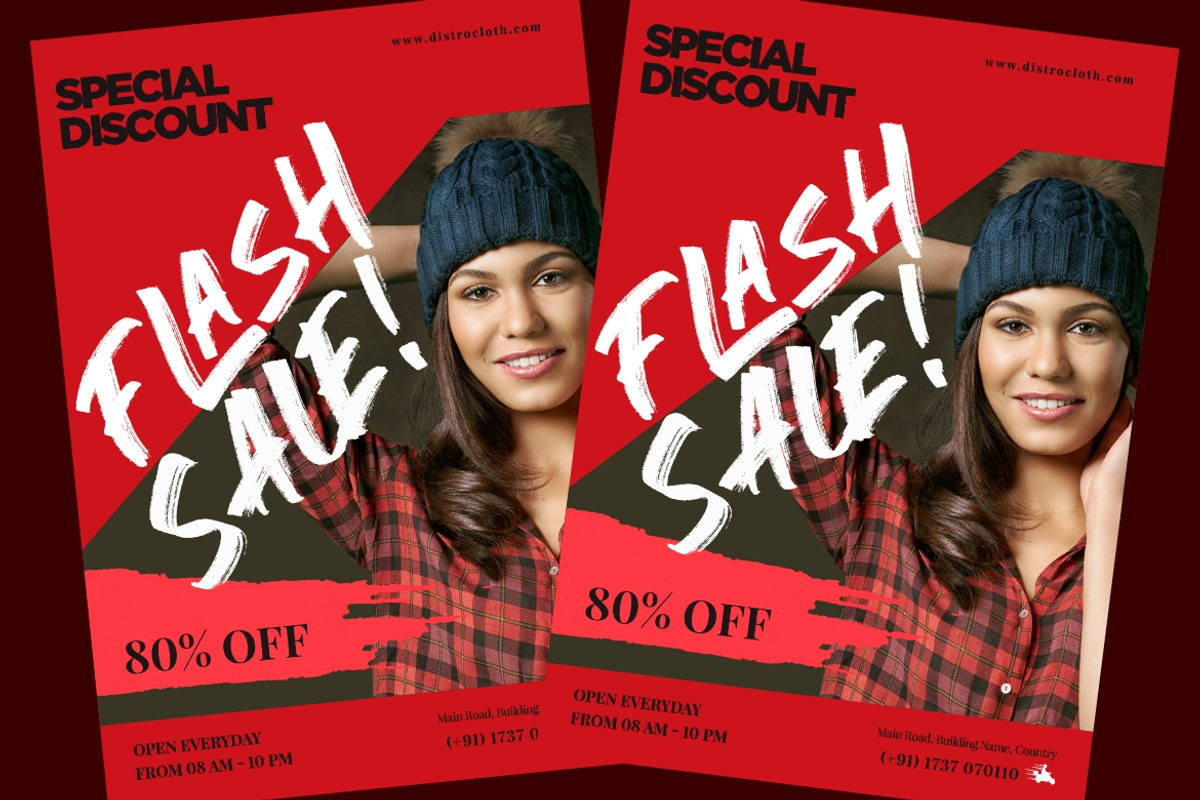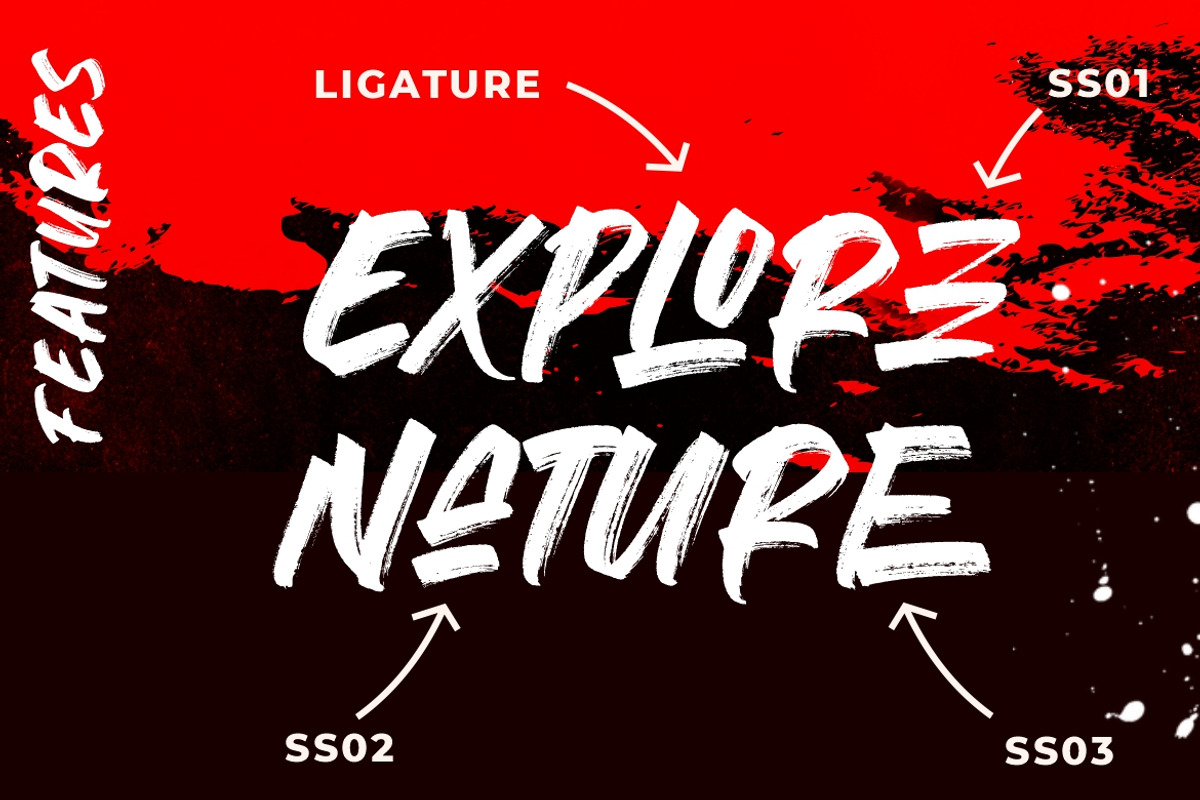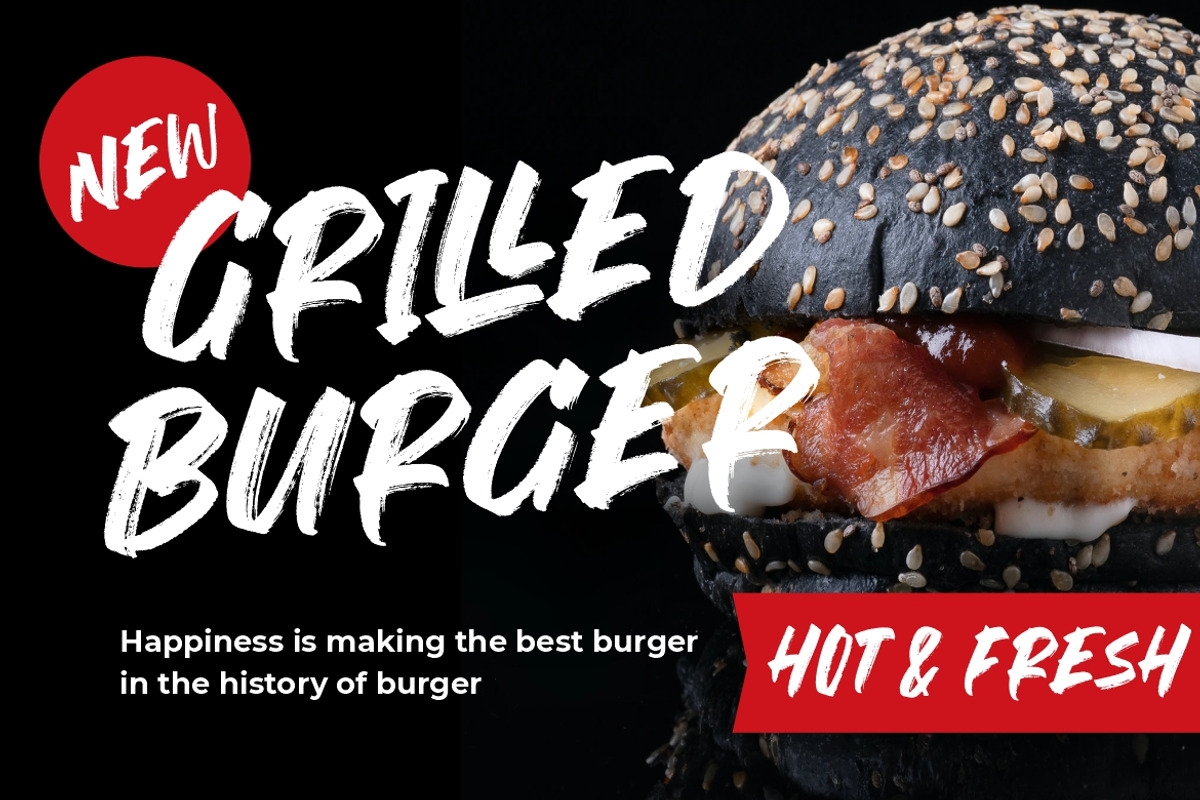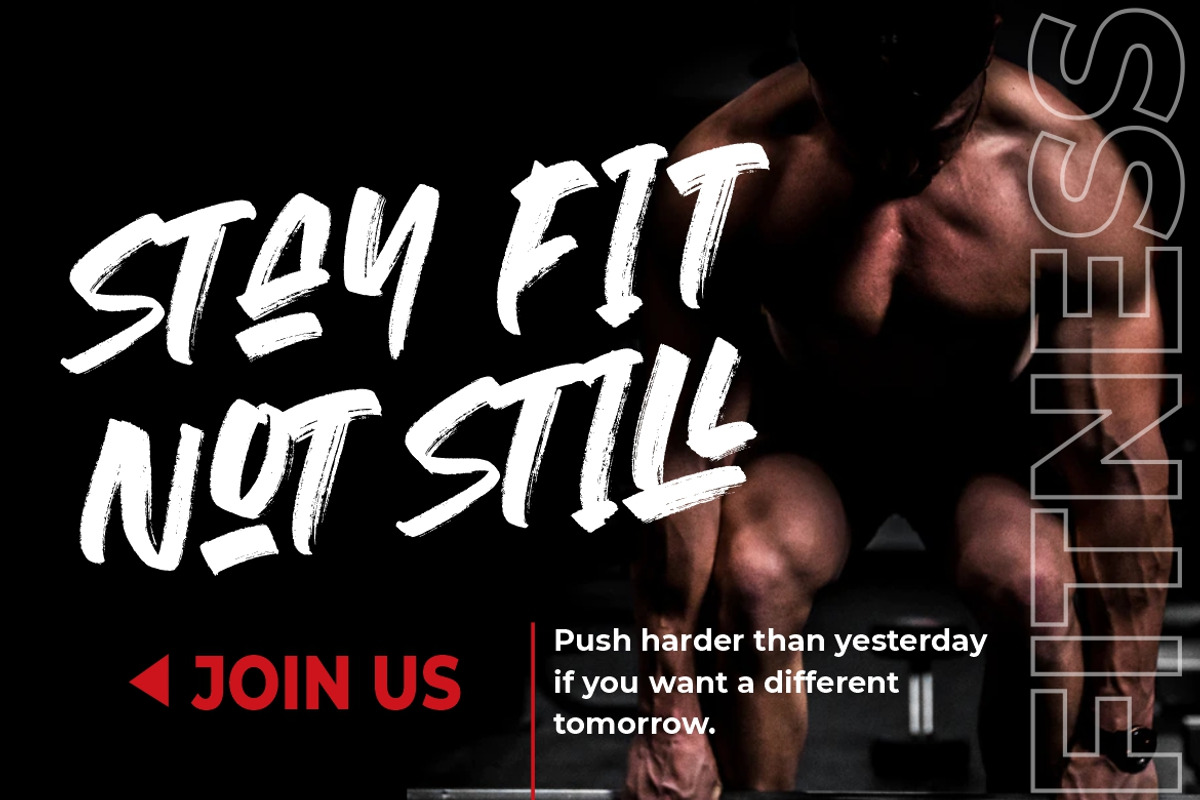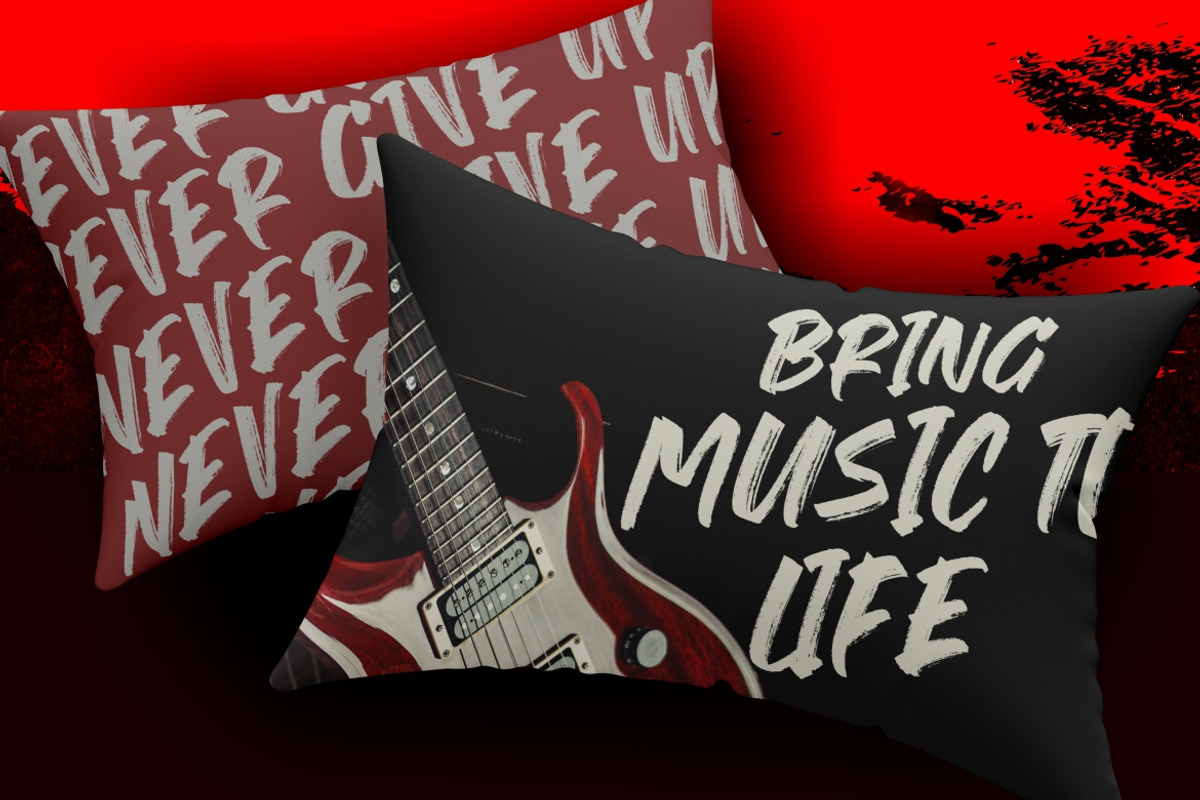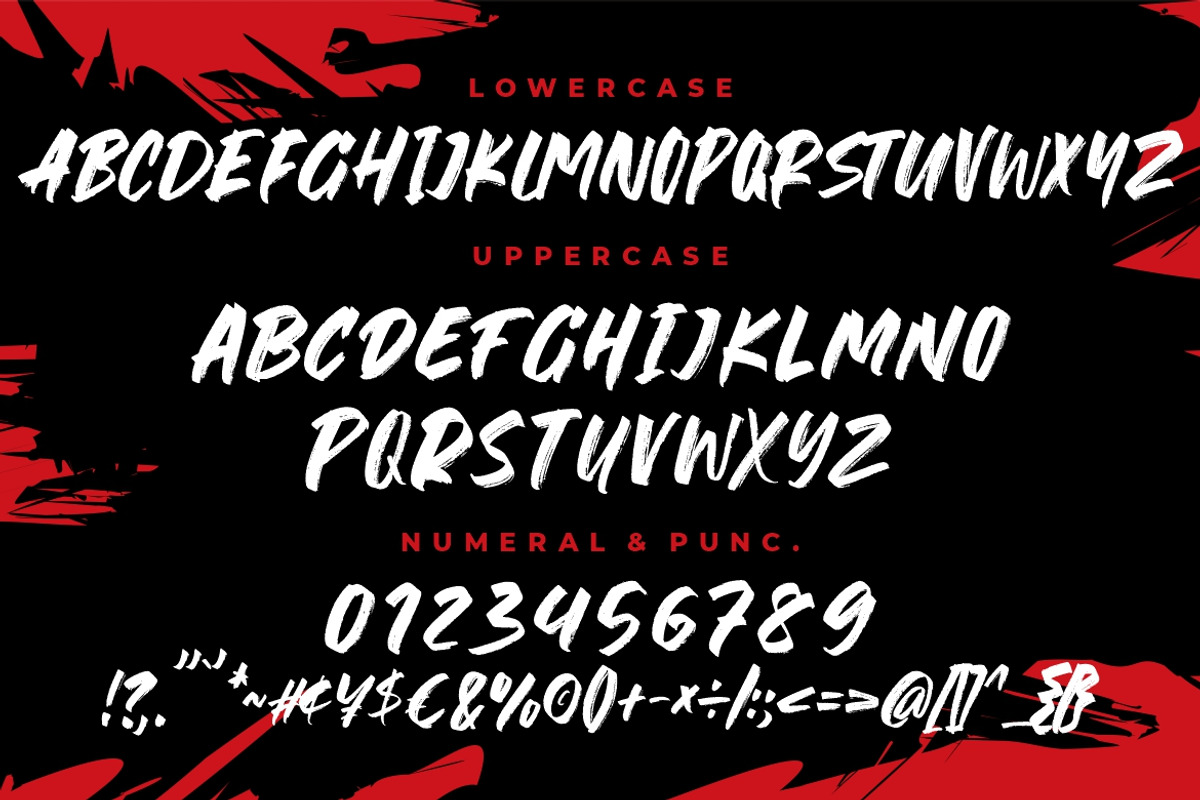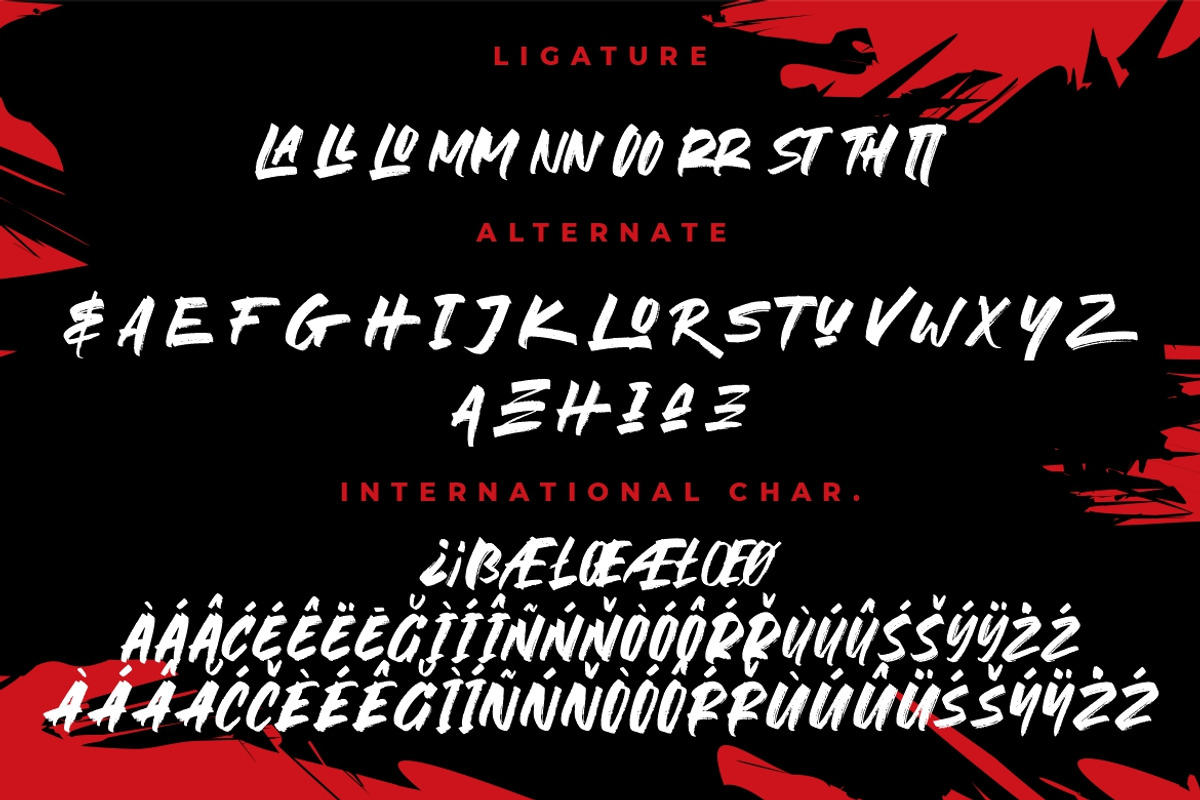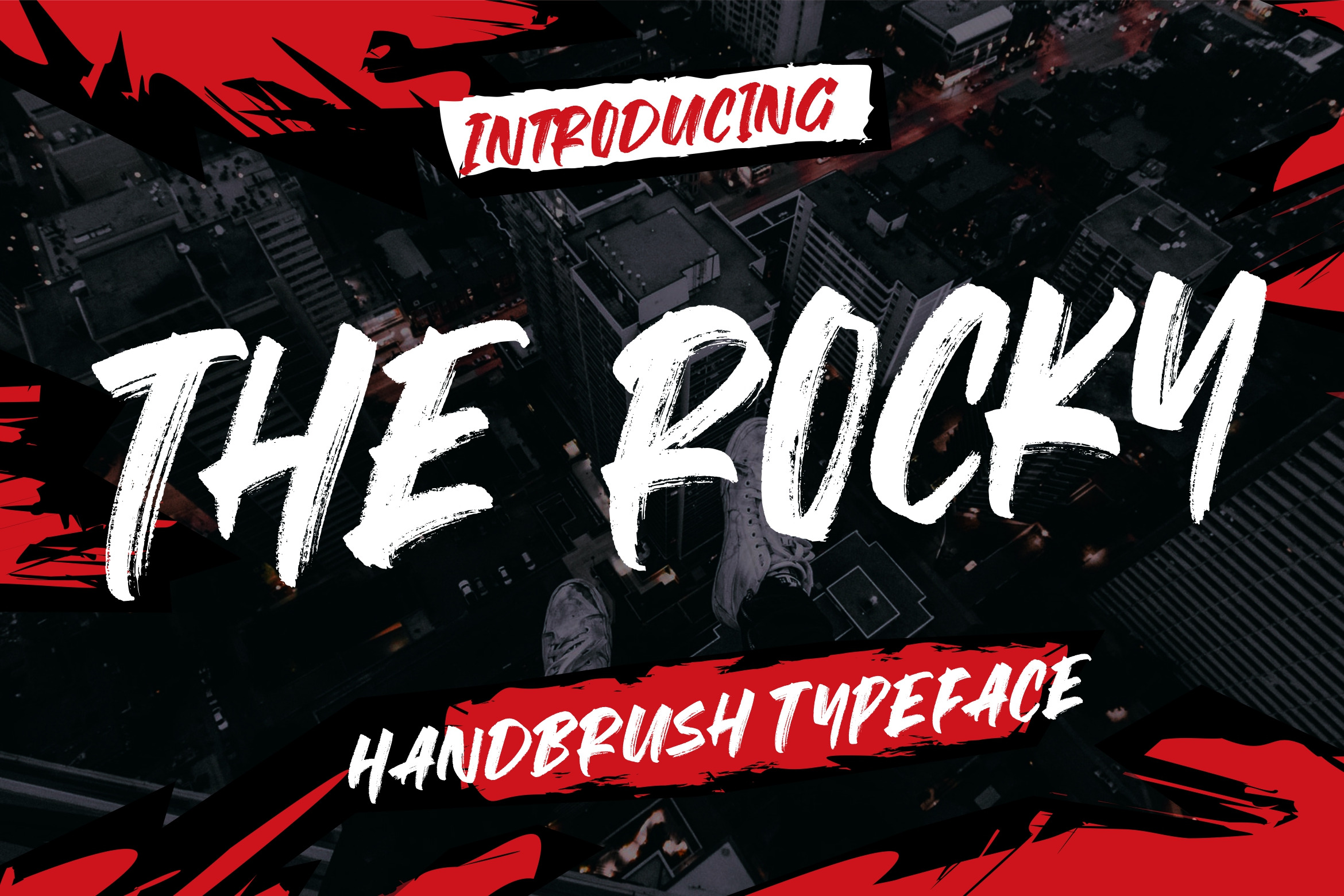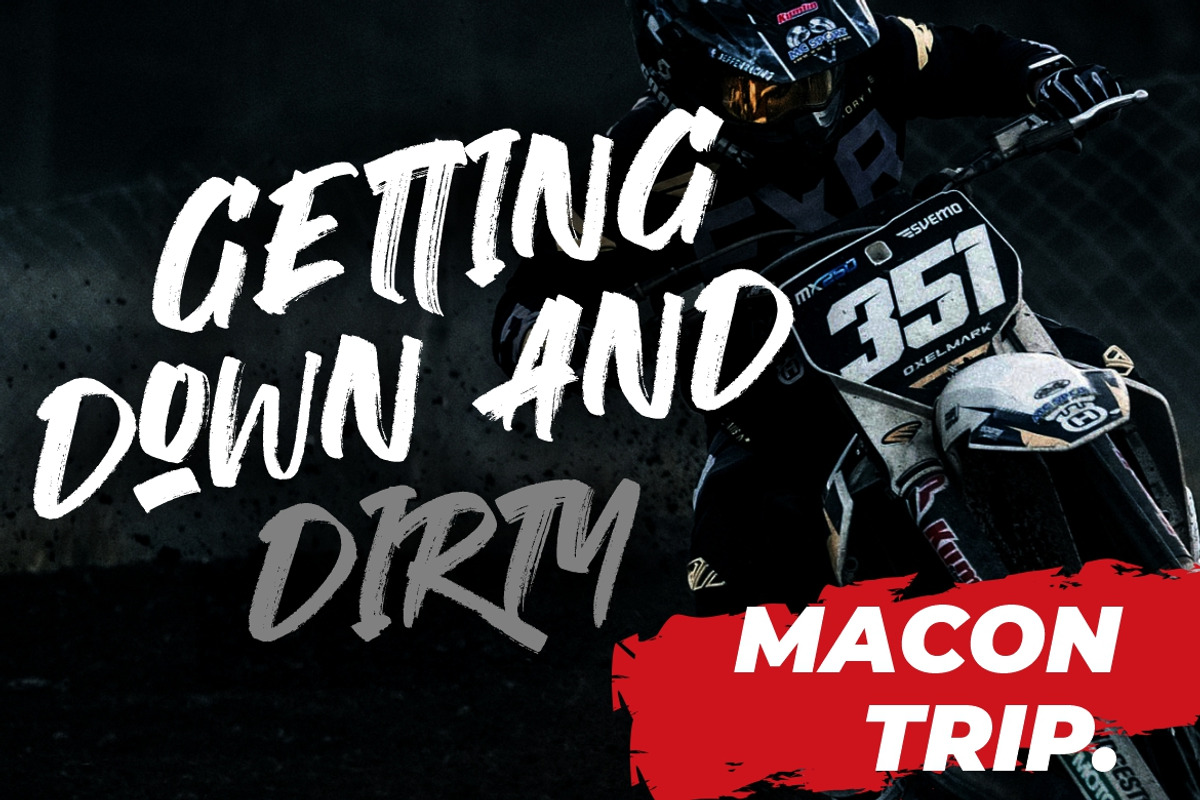
The Rocky Handbrush Typeface
The Rocky is hand brush font with scratch bold with natural textures.
The Rocky is perfect for branding projects, logo, wedding designs, social media posts, advertisements, product packaging, product designs, label, photography, watermark, invitation, stationery and any projects that need handwriting taste.
- Ligature & Alternate